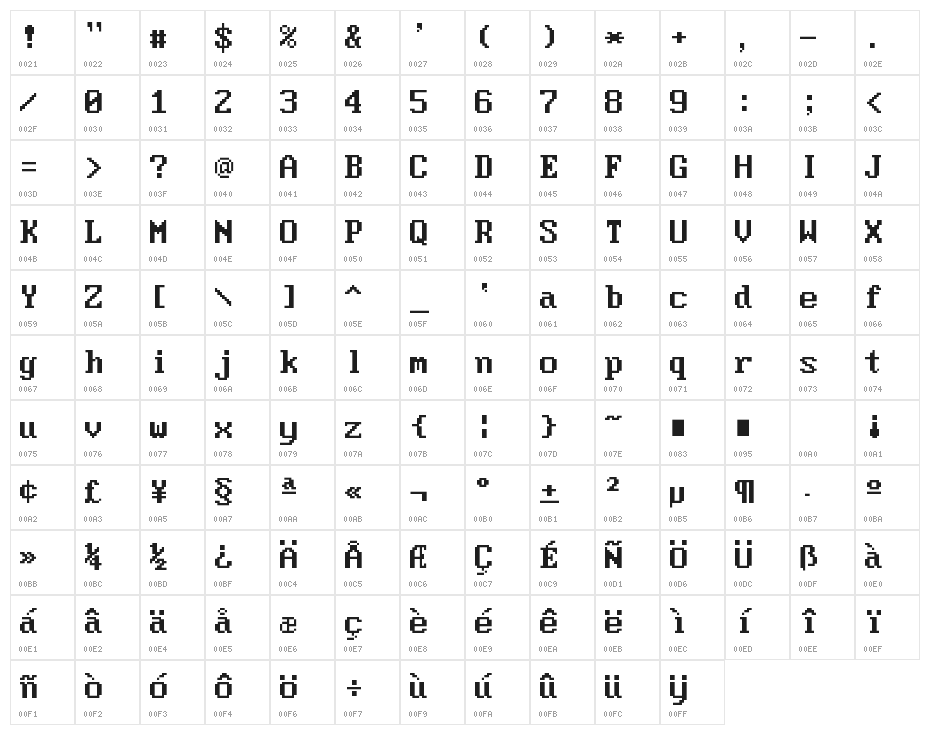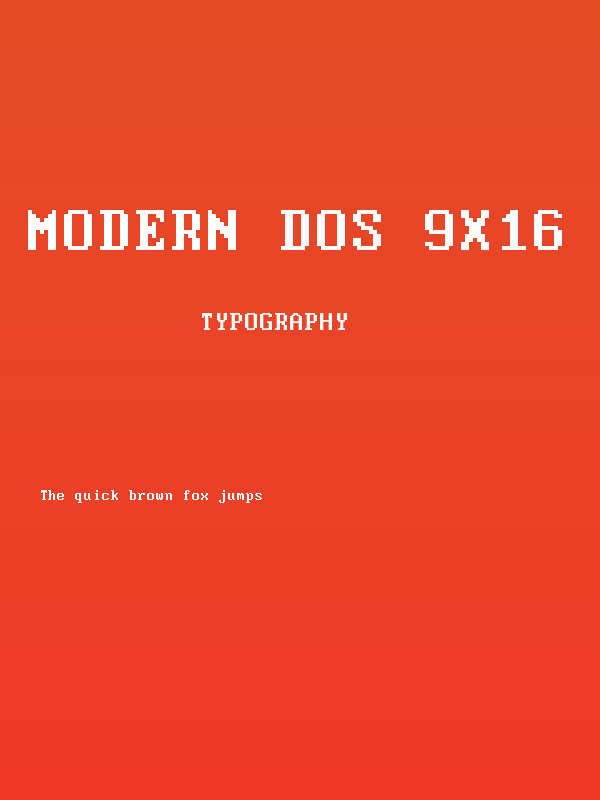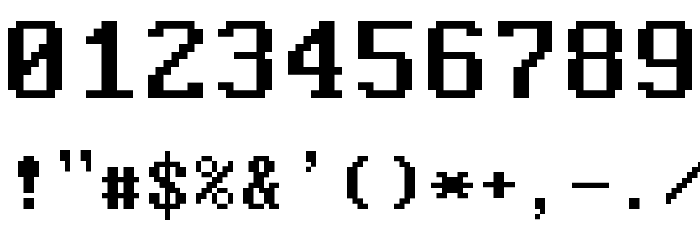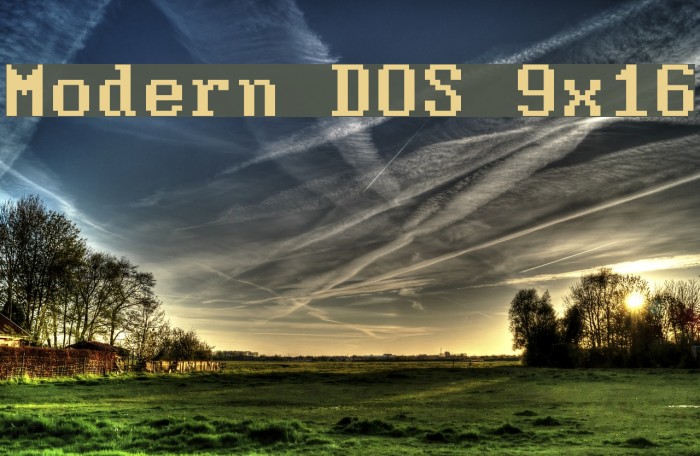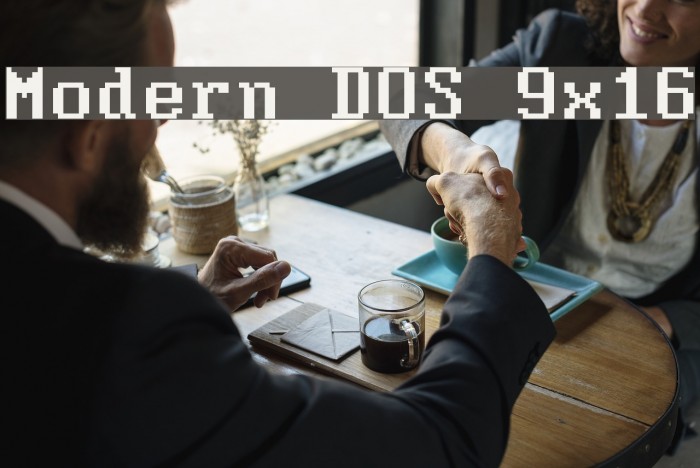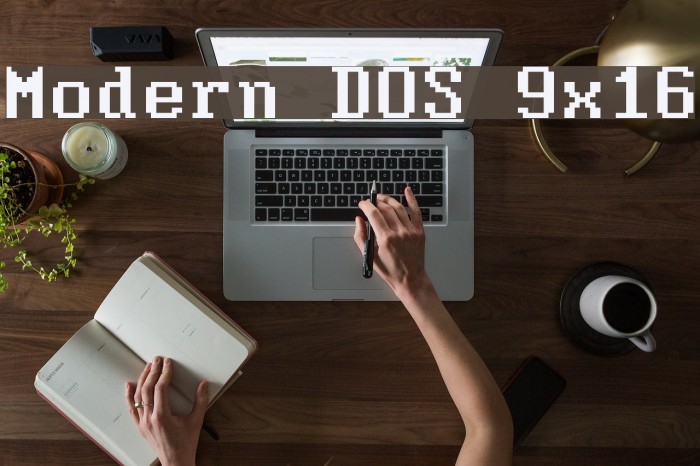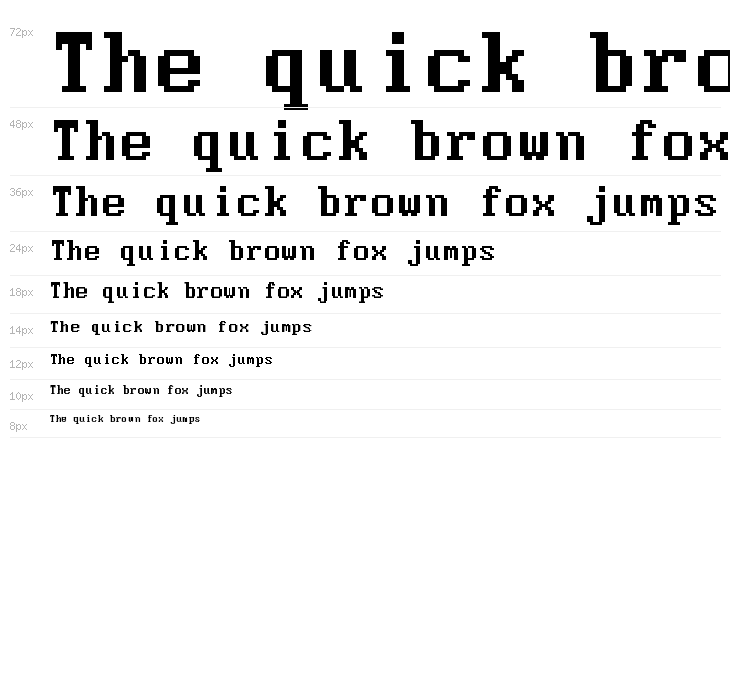
Modern DOS 9x16 Font
Modern DOS 9x16 Description
This font features a distinct pixelated design reminiscent of classic computer and video game aesthetics. Each character is constructed with a grid-like precision, offering a retro, digital feel. The uppercase and lowercase letters maintain a uniform width, contributing to a monospaced appearance. The numerals and special characters are crafted with the same pixelated style, ensuring consistency across all glyphs. This font's nostalgic charm makes it ideal for projects that aim to evoke a sense of early computing or vintage gaming. Its clear and legible design ensures readability even at smaller sizes.
| Use Case | Logos, Coding interfaces, Digital art |
| Proposed Projects | Ideal for retro video games, tech-themed designs, coding interfaces, and digital art projects. |